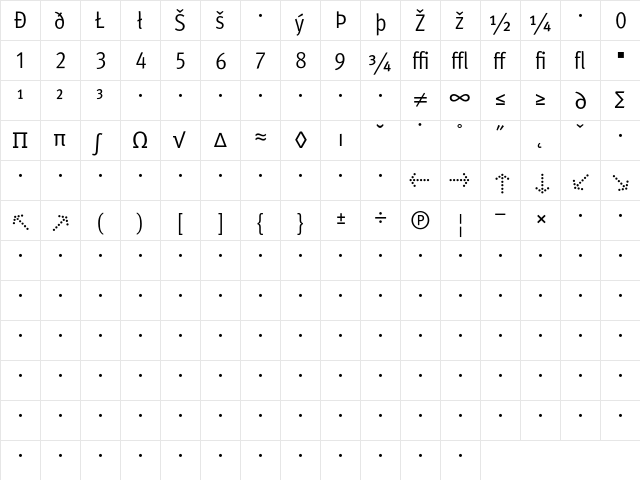
MetaCondNormal Expert
Design Context for MetaCondNormal Typeface
MetaCondNormal offers clean, dependable letterforms without strong stylistic allegiance, making it a practical choice for designers who need flexibility. Its narrow stance lets it pack a punch even in space-constrained designs.
Pro Tip: Use MetaCondNormal in both headline and body roles to test its range before committing to a single application.